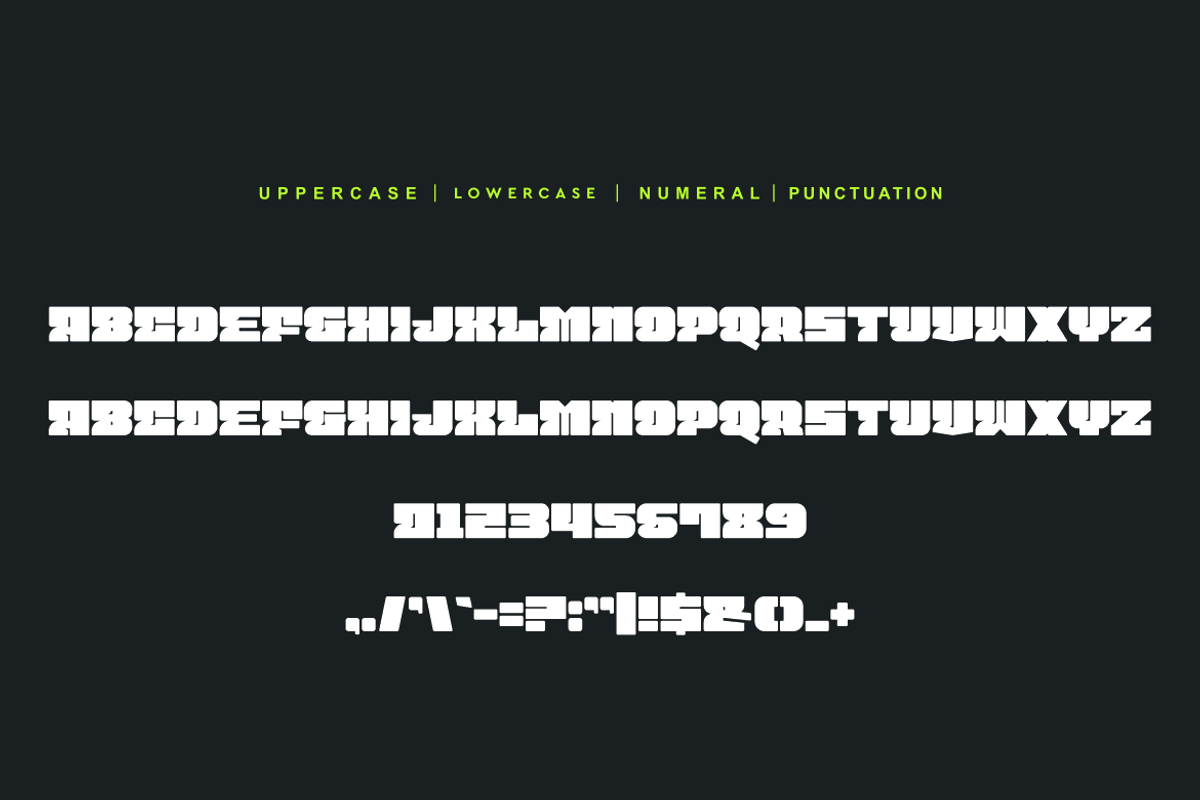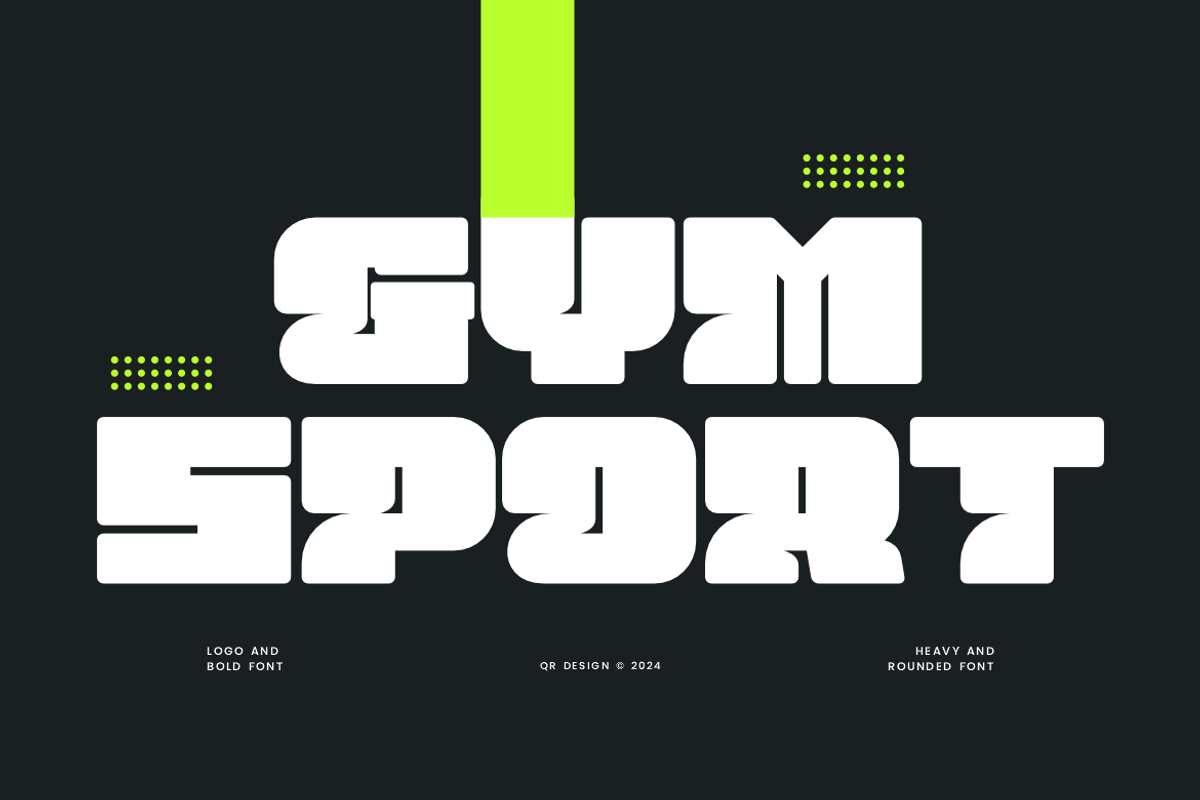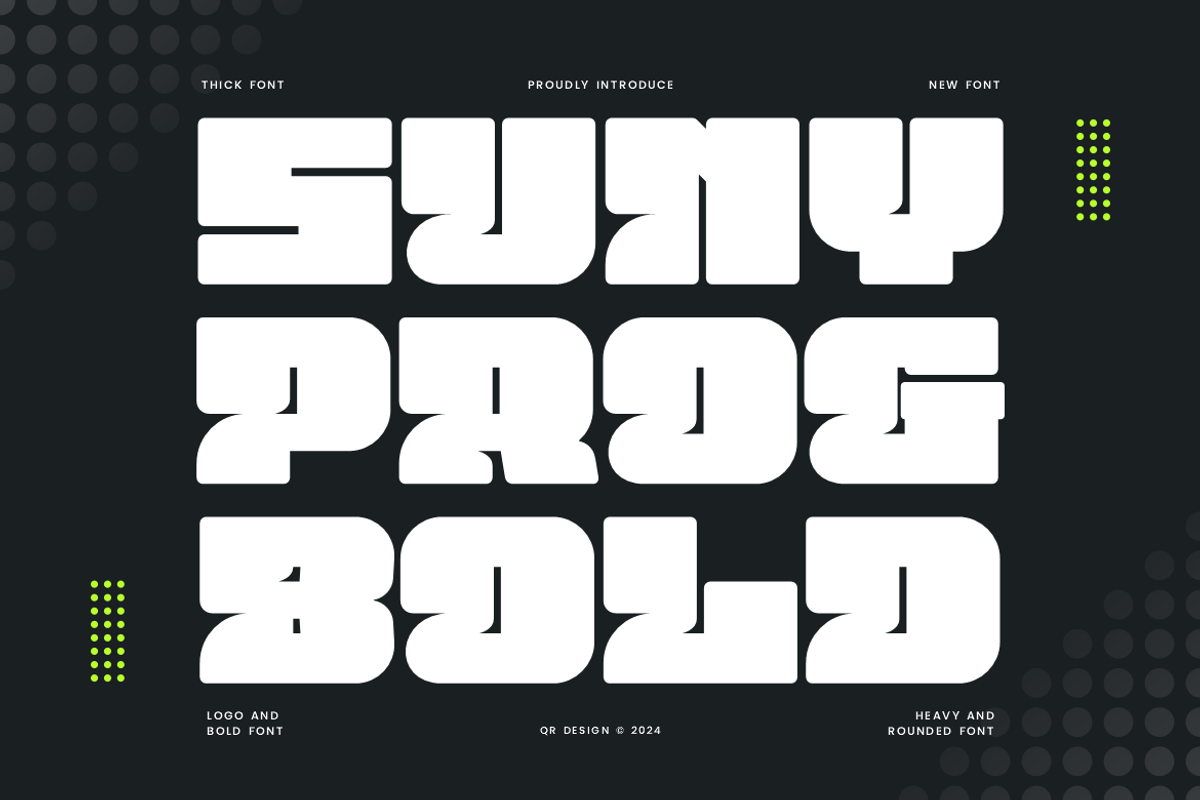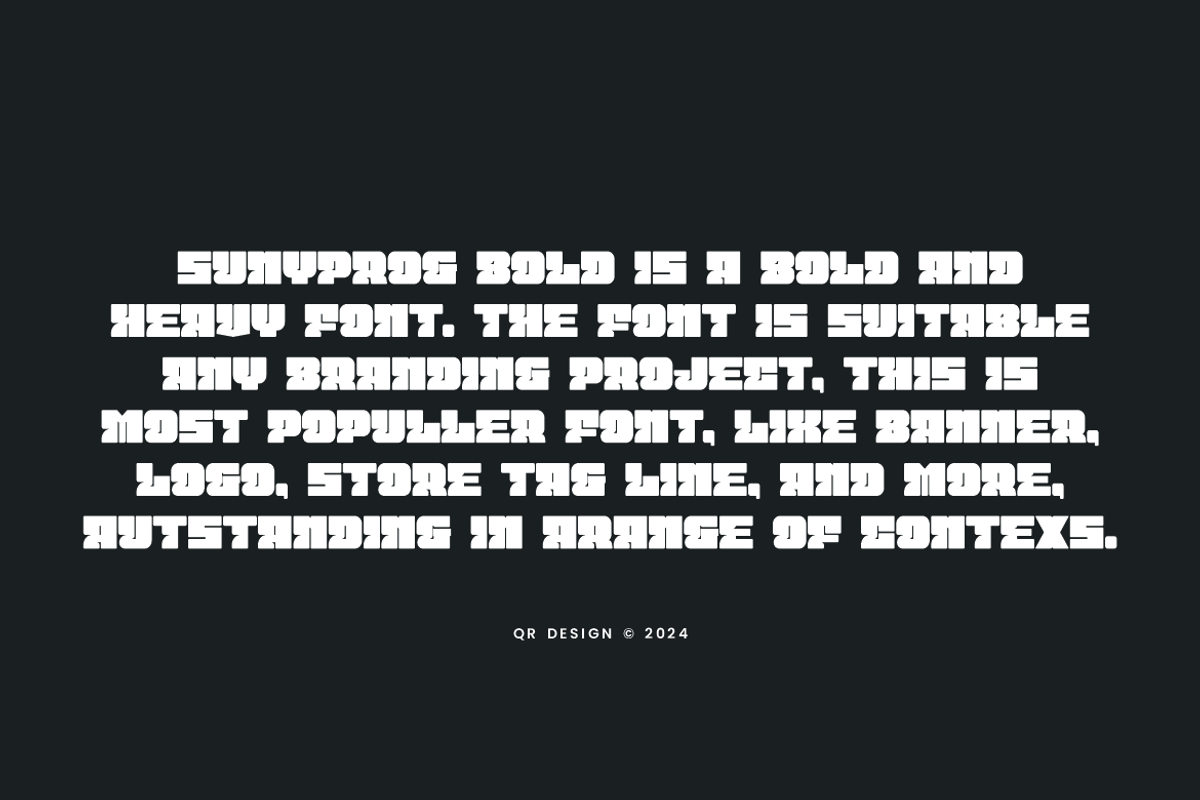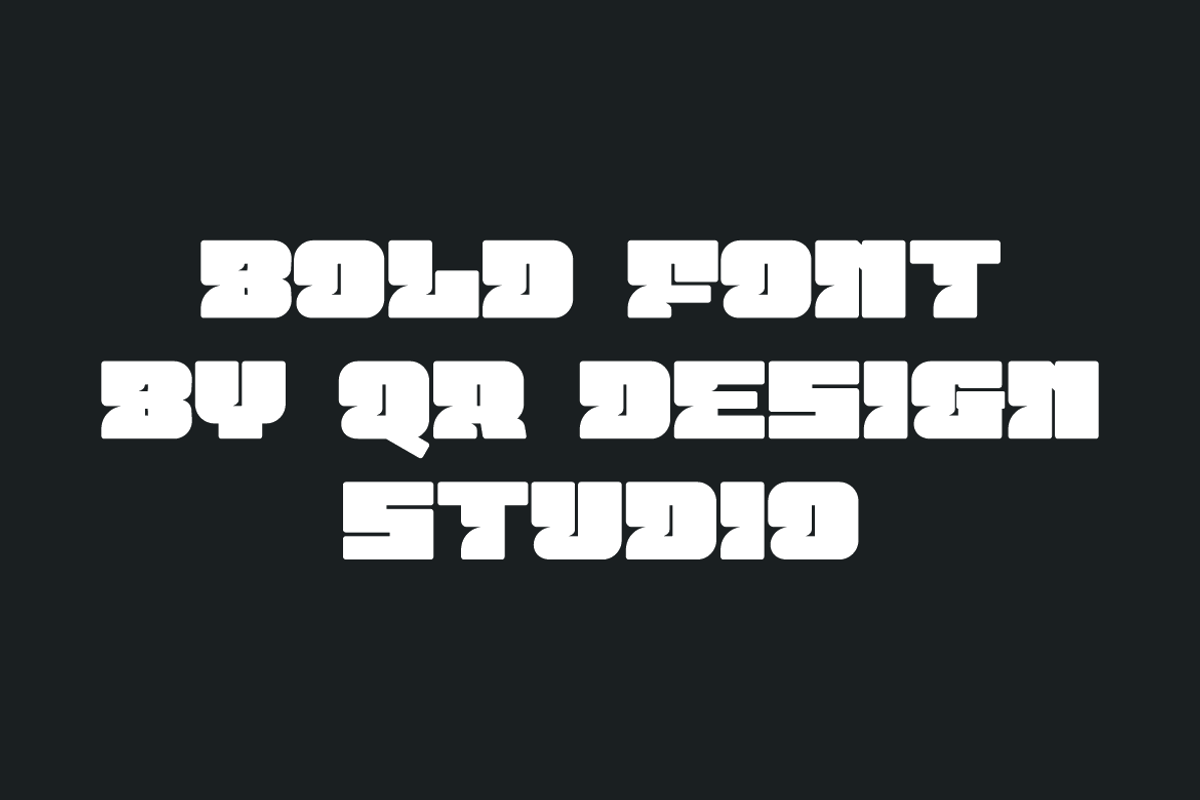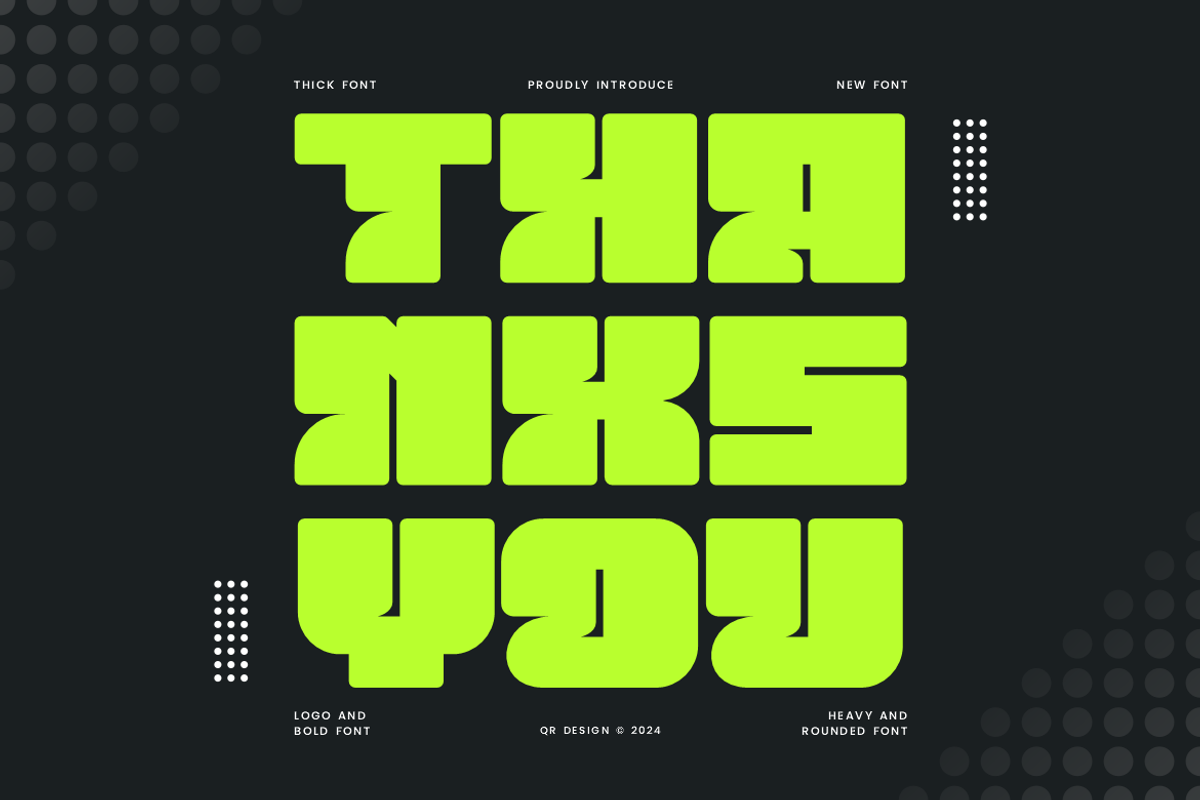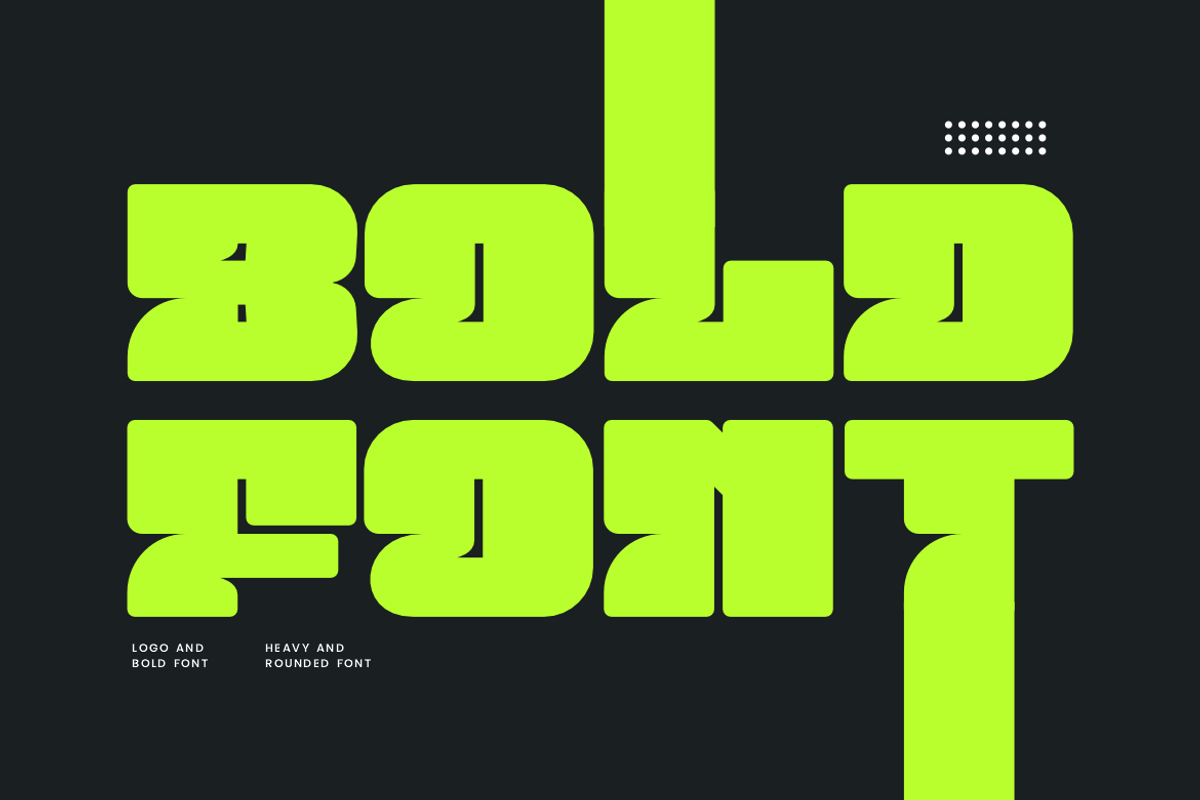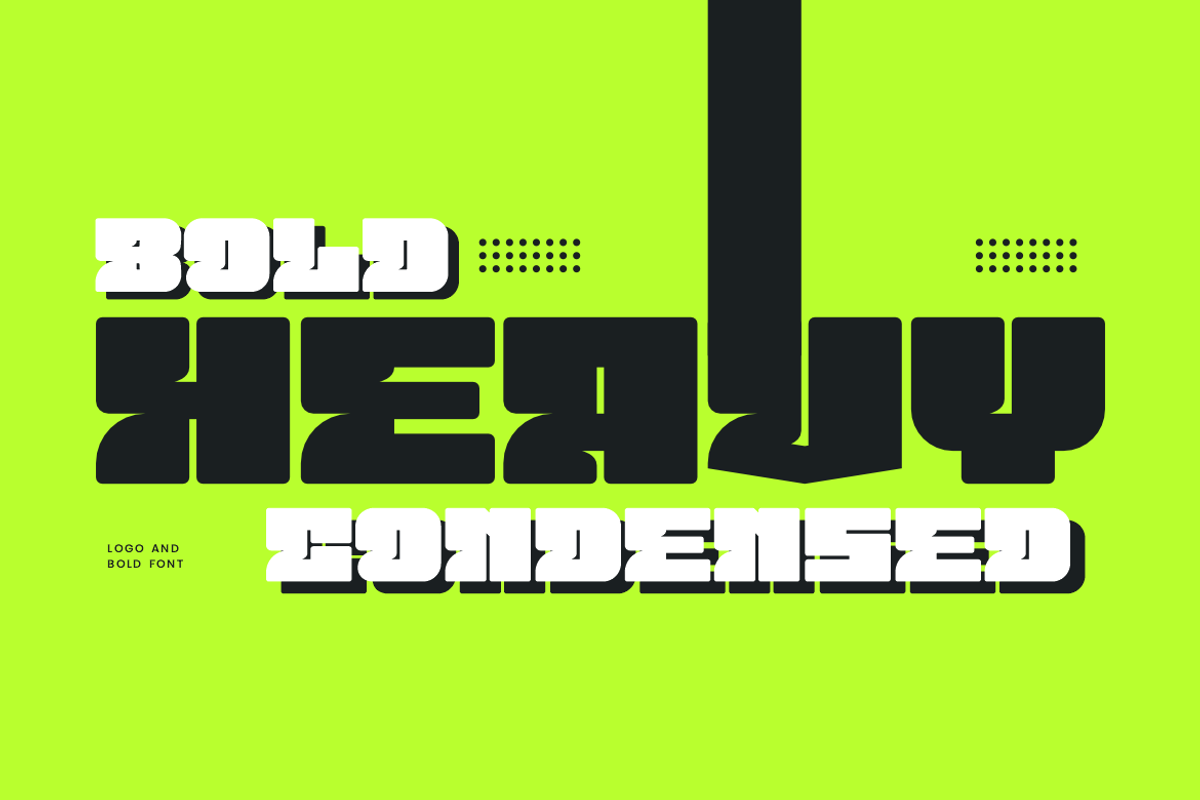
Sunyprog Bold Heavy & Logotype Font
Sunyprog Bold Font is a bold and authentic display font. The font is suitable for any branding project like poster, logo, sport, and many more. Outstanding in a wide range of contexts.